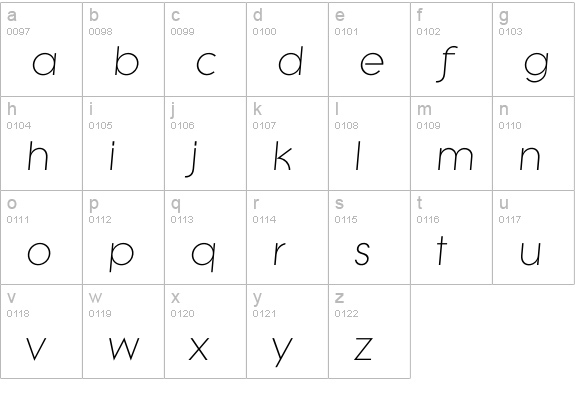
Ilitera Light is a refined, elegant variant in the Ilitera typeface family \xE2\x80\x94 well suited to elegant body text, refined sub-headings, and luxury branding.
Introducing Ilitera Light, a stunning typeface that effortlessly combines elegance with modernity. This versatile font is perfect for capturing attention and creating a lasting impression in any design project. With its clean lines and delicate curves, Ilitera Light adds a touch of sophistication to any text, making it ideal for logos, branding, headlines, and more. What sets Ilitera Light apart is not only its striking design but also its availability as a free download. Yes, you read that right! Ilitera Light is freely available to download at FontsMarket.com, making it accessible to designers, creatives, and enthusiasts alike. Now, you can effortlessly elevate your projects without breaking the bank. Whether you're a professional designer or simply someone who appreciates the beauty of typography, Ilitera Light is a must-have addition to your font collection. Its versatility allows it to seamlessly blend into various design styles, whether it be minimalistic, modern, or even retro-inspired. The possibilities are endless. Ilitera Light's legibility is second to none, ensuring that your message is conveyed clearly and effectively. Its balanced letterforms and well-spaced characters make reading effortless, regardless of size or application. From large banners and posters to small captions and body text, Ilitera Light ensures your words are always visually captivating. With its extensive character set, Ilitera Light caters to multiple languages, making it a valuable asset for global design projects. This font's attention to detail and commitment to excellence shines through in every character, ensuring a seamless and harmonious layout. So why wait? Download Ilitera Light today, and unlock a world of creative possibilities. Whether it's for personal or commercial use, this font is a game-changer. Visit FontsMarket.com now to get your hands on Ilitera Light and experience the power of beautiful typography, free of charge.